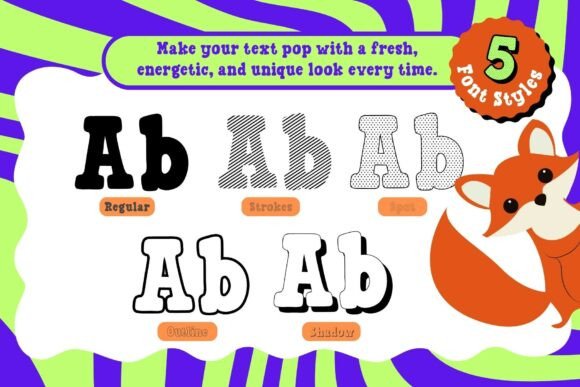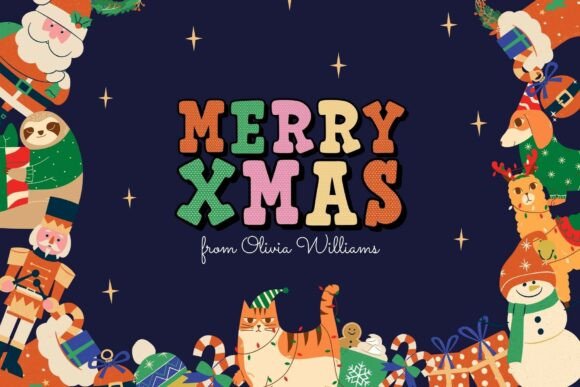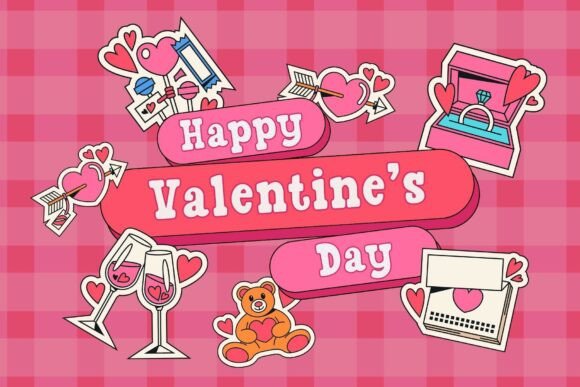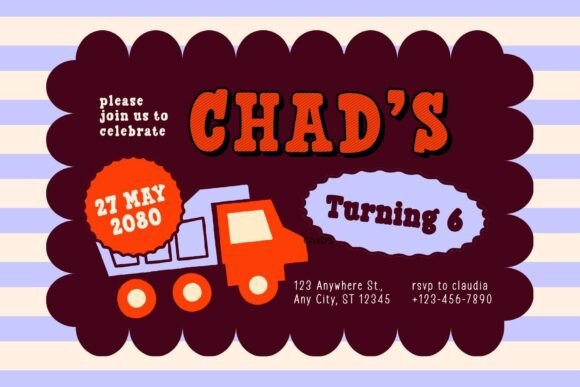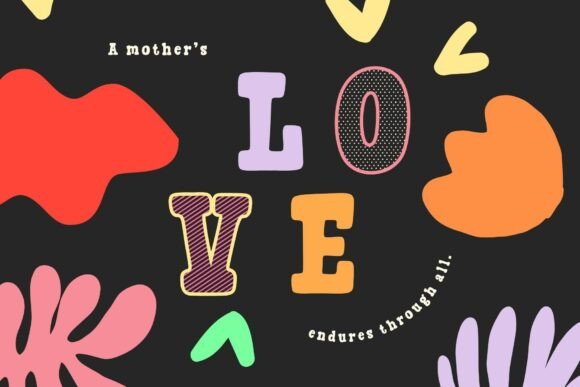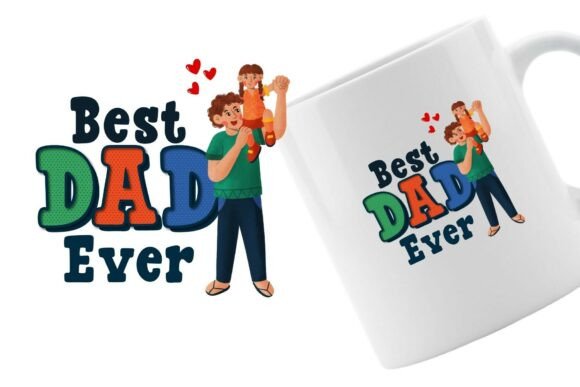
Unleashing the Power of Fox Gabriel Font: A Fun and Playful Display Font
I’ll never forget the time I was working on a project for a children’s party invitation. I had the design concept all figured out, but I just couldn’t find the right font to bring it all together. The invitation needed to be fun, energetic, and attention-grabbing, but everything I tried seemed either too boring or too over-the-top. That’s when I stumbled upon the Fox Gabriel Font, and it was love at first sight! 💕
This bold and exceptionally playful Display Font boasts 5 distinct styles perfect for fun designs that demand instant, energetic attention. With its groovy, chunky letterforms and rounded, cartoon-like aesthetic, Fox Gabriel immediately evokes a nostalgic, 70s retro vibe that’s impossible to ignore.
An Honest Review of Fox Gabriel Font
- ✅ The 5 creative styles (Regular, Strokes, Spot, Outline, and Shadow) offer endless possibilities for customization and layering.
- ✅ The font’s playful, energetic vibe is perfect for vibrant poster design, cheerful product packaging, children’s media, fun branding, and more.
- ✅ The rounded, cartoon-like letterforms are instantly recognizable and evoke a sense of nostalgia.
- ✅ Fox Gabriel is incredibly easy to use, even for those without extensive design experience.
While Fox Gabriel is an amazing font, there are a few things to keep in mind:
- 🤔 The font’s bold and playful style may not be suitable for more formal or professional designs.
- ⚠️ Some of the stylistic alternates and glyphs may not work well at very small font sizes.
The Backstory of Fox Gabriel Font
According to the font’s creators, Fox Gabriel was inspired by the fun and playful designs of the 1970s. The team wanted to create a font that would evoke a sense of nostalgia and playfulness, while also being highly versatile and easy to use. The result is a font that’s perfect for a wide range of creative projects, from children’s media to fun branding and packaging.
Q: Is Fox Gabriel suitable for body text or long-form content?
A: While Fox Gabriel is an amazing font, it’s primarily designed for display purposes and may not be suitable for body text or long-form content.